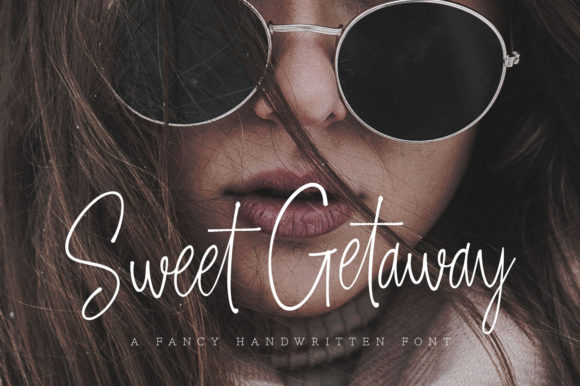
Introducing Sweet Getaway Font - A Serene Escape into the World of Enchanting Script
Journey with us to a place of pure bliss, where the written word dances with grace and elegance. Sweet Getaway Font is a stunning script creation that will transport you to a realm of captivating beauty. Inspired by the free-flowing strokes of a ballpoint pen, this contemporary script exudes a sense of effortless style and sophistication.
Unleash your creativity and let Sweet Getaway Font become your muse. Whether you're a designer, a blogger, or simply someone who appreciates the art of typography, this font will elevate your projects to new heights.
With its fast strokes and lively curves, Sweet Getaway Font brings a touch of whimsy and playfulness to your designs. Its unique character adds a personal touch that will make your creations stand out from the crowd.
Picture this: a wedding backdrop adorned with the flowing script of Sweet Getaway Font, creating an atmosphere of romance and elegance. The curves of each letter intertwine, guiding your guests into a world of enchantment.
Or imagine a fashion magazine spread where the headlines dance across the page in the captivating style of Sweet Getaway Font. Each word becomes a work of art, drawing the reader's eye and inviting them to delve into the stories within.
The versatility of Sweet Getaway Font is truly remarkable. Its diverse range of applications knows no bounds. From branding and logos to fashion and cosmetics, from journals and lookbooks to greeting cards, this font effortlessly adapts, adding its unique charm to every project.
So, embark on a creative adventure with Sweet Getaway Font. Let its enchanting script carry you away to a world of endless possibilities. Discover the joy of crafting designs that resonate with your audience, leaving a lasting impression that lingers in their hearts.